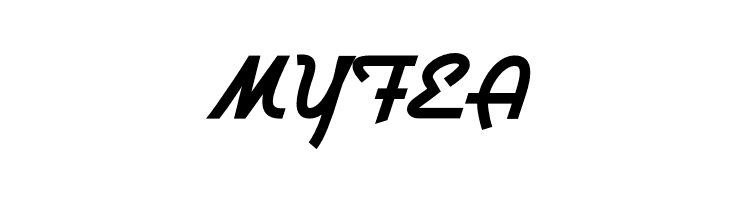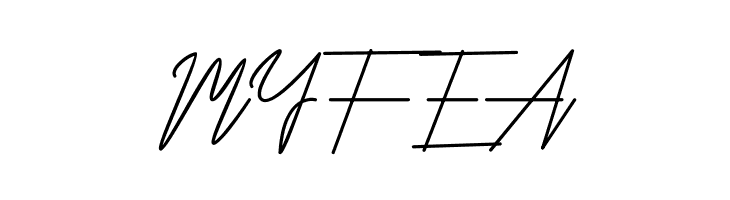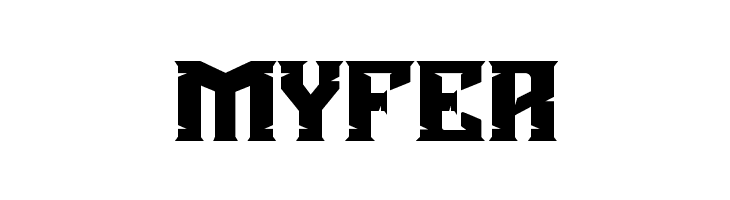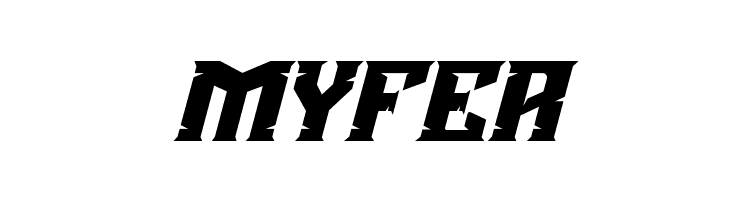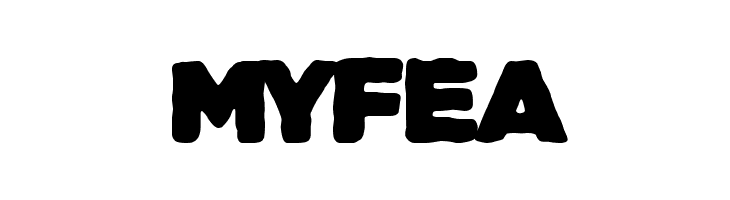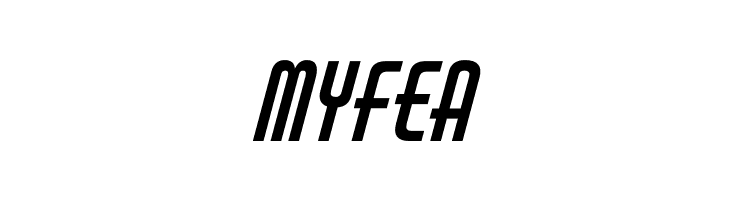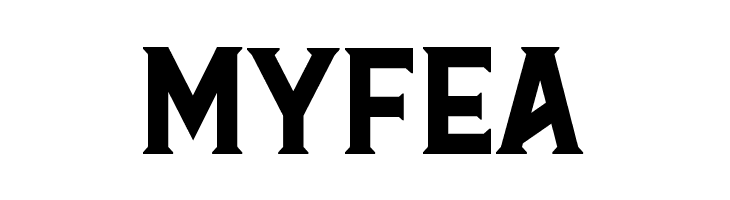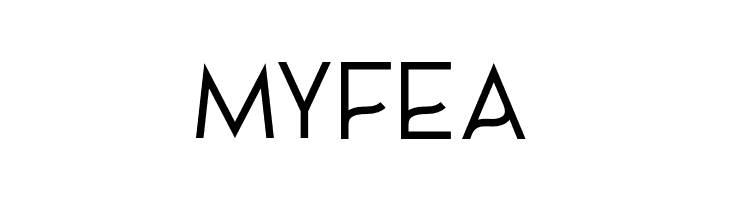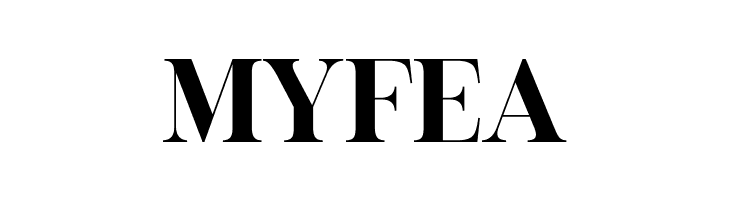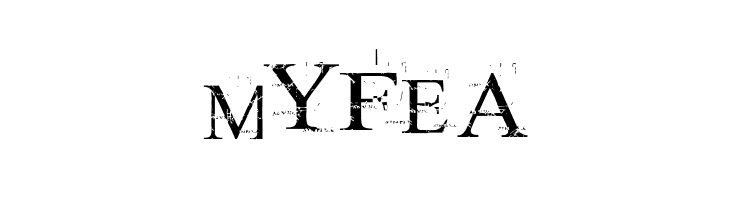
A bold, Gothic-inspired font with sharp, angular edges and strong geometric shapes.
A bold, angular italic font with dynamic and energetic styling.
A bold, rounded font with a strong, playful presence.
A clean, minimalistic monospaced font with an extralight weight and geometric influence.
A classic serif font with elegant strokes and medium contrast.
An elegant italic font with smooth curves and balanced contrast.
A modern, geometric font with a tall and narrow design.
A bold, dynamic font with a slight slant and consistent stroke widths, ideal for impactful designs.
A modern, sleek font combining geometric and cursive styles.
Font made from silhouettes of military aircraft and helicopters.
A bold, playful font with a rounded, cartoon-like style.
A bold, geometric font with a futuristic and industrial design.
A dynamic and fluid script font with elegant, flowing letterforms.
A dot-based digital font with a modern, technological aesthetic.
A bold, geometric font with a futuristic and modern style.
A bold, futuristic font with geometric and dynamic styling.
A bold, decorative font with dynamic curves and sharp edges.
A bold, futuristic font with sharp, angular edges and a dynamic style.
A bold, cursive font with a dynamic and flowing style.
A whimsical, hand-drawn font with tall, narrow characters and playful details.
A modern, extra-bold sans-serif font with a geometric design.
A modern, geometric sans-serif font with a minimalist design.
A playful, casual handwritten font with smooth, rounded strokes.
A bold, high-contrast serif font with a classic yet modern appeal.
A bold, angular font with a modern and edgy style.
A bold, geometric font with sharp angles and a modern, edgy style.
A modern, geometric font with clean lines and sharp angles.